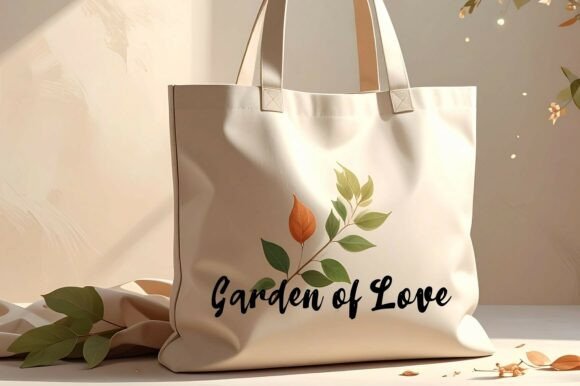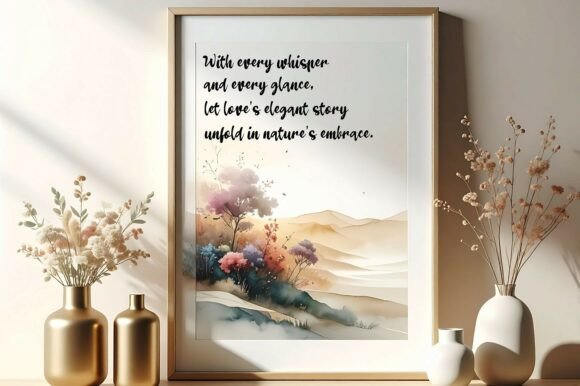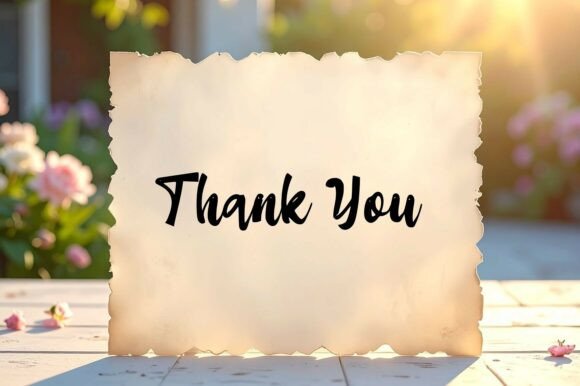
Introducing Beatline Font: Elevate Your Designs with Elegance and Flair
In the world of typography, fonts play a crucial role in conveying the tone and personality of a brand or design. For those seeking a stylish and dynamic script font that embodies the essence of modern calligraphy, look no further than Beatline. This stunning font is designed to capture the energetic flow of contemporary calligraphy, making it perfect for a wide range of creative projects.
The Characteristics of Beatline Font
Beatline is characterized by its smooth, connected strokes and confident curves, which give it a chic, contemporary, and effortlessly elegant feel. The font’s refined and vibrant touch makes it an excellent choice for designers and crafters looking to add a touch of sophistication to their work. Whether you’re creating fashion branding, wedding invitations, social media graphics, personal branding, or creative stationery, Beatline is the perfect companion.
Perfect for a Sophisticated yet Approachable Aesthetic
Beatline’s unique blend of elegance and approachability makes it an ideal font for designs that aim to convey a sense of refinement without being too formal. Its flowing script and dynamic curves bring a sense of movement and energy to any design, making it perfect for:
- Fashion Branding: Elevate your fashion brand with Beatline’s sophisticated and stylish touch. The font’s confident curves and smooth strokes make it perfect for creating eye-catching logos, advertisements, and marketing materials.
- Wedding Invitations: Make your wedding invitations truly special with Beatline’s elegant and refined feel. The font’s flowing script and dynamic curves add a touch of romance and sophistication to any design.
- Social Media Graphics: Stand out on social media with Beatline’s vibrant and energetic touch. The font’s smooth strokes and confident curves make it perfect for creating eye-catching graphics, posts, and stories.
- Personal Branding: Establish your personal brand with Beatline’s unique and stylish touch. The font’s refined and elegant feel makes it perfect for creating professional and sophisticated marketing materials.
- Creative Stationery: Add a touch of elegance to your stationery with Beatline’s flowing script and dynamic curves. The font’s smooth strokes and confident curves make it perfect for creating beautiful and functional stationery.
Why Choose Beatline Font?
With Beatline, you can expect a font that is not only visually stunning but also highly versatile. Here are just a few reasons why Beatline is the perfect choice for your next design project:
- Unique and Stylish: Beatline’s smooth, connected strokes and confident curves make it a truly unique and stylish font that will set your design apart.
- Elegant and Refined: The font’s refined and vibrant touch makes it perfect for designs that aim to convey a sense of sophistication and elegance.
- Highly Versatile: Beatline is suitable for a wide range of design projects, from fashion branding to wedding invitations and social media graphics.
- Easy to Read: Despite its elegant and refined feel, Beatline is highly legible, making it perfect for designs that require a clear and concise message.